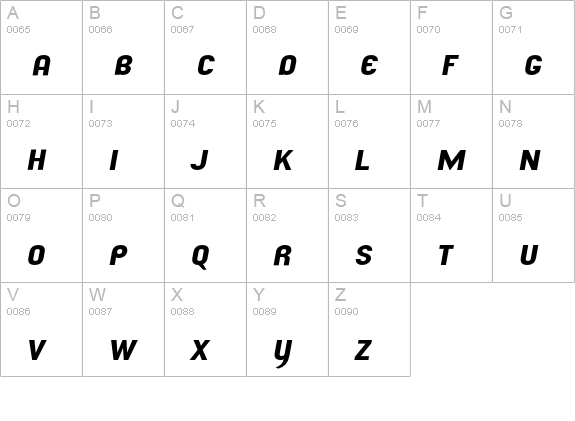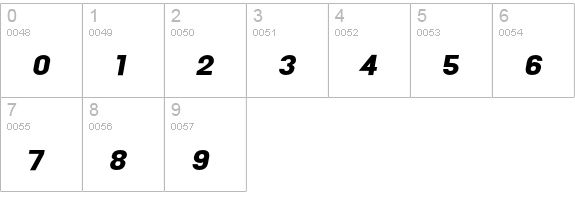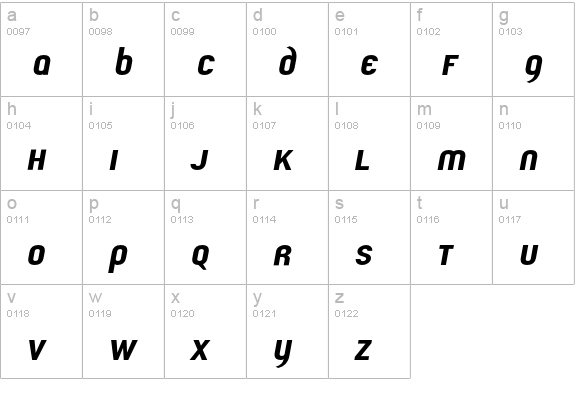
UdoWideLeaned Font Details
UdoWideLeaned is a stunning and versatile font that is sure to catch the eye of any designer or typographer. Its unique and elegant lean adds a touch of sophistication and modernity to any project, making it a perfect choice for both digital and print designs. The beauty of UdoWideLeaned lies not only in its sleek design but also in its versatility. This font is ideal for a wide range of applications, from branding and logo design to editorial layouts and web design. Its clean lines and balanced proportions create a sense of harmony and professionalism, making it suitable for any project that requires a touch of refinement. One of the best things about UdoWideLeaned is that it is free! Yes, you read that right. This incredible font is freely available to download at FontsMarket.com. Now you can enhance your creative endeavors without worrying about breaking the bank. Whether you are a professional designer or a hobbyist, UdoWideLeaned is a valuable addition to your font library. So why wait? Take advantage of this fantastic opportunity and give your designs the edge they deserve with UdoWideLeaned. Download this font for free at FontsMarket.com and unlock a world of possibilities for your next project.